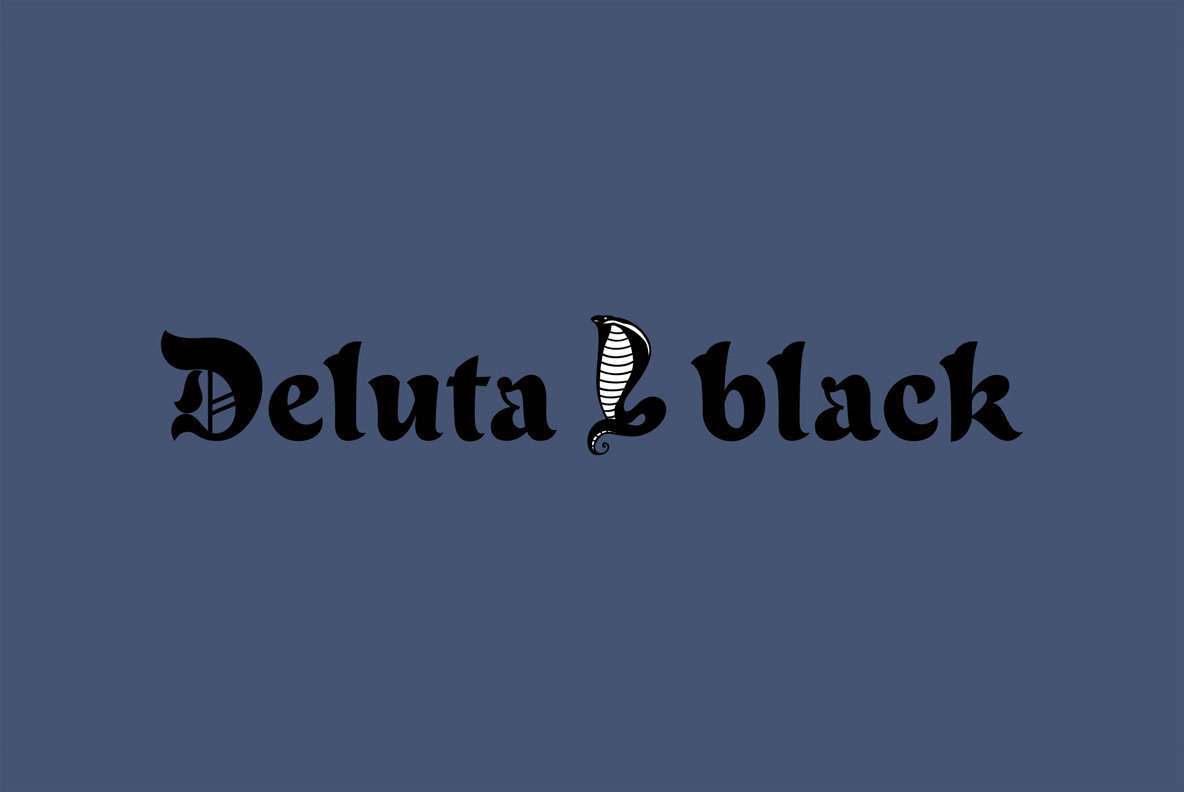
Deluta Black Font
Deluta Black Font is perfect for bold industrial branding, dramatic poster design, commanding corporate identities, high-impact advertising campaigns, powerful editorial headlines, striking logo applications, authoritative signage systems, and dominant visual communications. This formidable typeface works exceptionally well in both digital applications and print media where maximum visual weight and uncompromising presence are fundamental design requirements.
What makes Deluta Black Font so exciting is its unrelenting interpretation of typographic power through ultra-bold letterforms that command absolute attention with the same overwhelming force and undeniable presence of industrial machinery and architectural monuments. The font features massive characters with commanding proportions, dominant stroke weights, and authoritative details that create immediate visual hierarchy and establish unquestionable authority. Its powerful personality and industrial heritage make it ideal for brands seeking to dominate competitive markets while communicating strength, reliability, and the unstoppable force of confident leadership to audiences who respect bold decisiveness.
The Deluta Black Font family includes ultra-heavy weight variations with different impact intensities, along with condensed styles and commanding alternates. Each style maintains the typeface's dominant character while offering comprehensive character sets including powerful numerals, authority-focused punctuation marks, and special symbols designed to enhance commanding communications and dominant branding efforts across various high-impact contexts.
This extraordinary typeface represents the perfect fusion of typographic weight and contemporary design power for industries requiring maximum visual impact. Whether you're developing construction company identities, creating bold advertising materials, or designing commanding corporate communications, Deluta Black Font Free Download delivers the visual dominance and versatility needed to establish immediate authority. The font's industrial strength makes it particularly effective for heavy industry, construction companies, bold advertising agencies, and businesses requiring maximum visual impact and uncompromising brand presence.
The precisely engineered ultra-bold construction and optimized commanding performance in Deluta Black Font ensure maximum visual weight while maintaining clear communication across all high-impact applications. Its dominant presence makes it ideal for authoritative branding, commanding marketing campaigns, and powerful communications where its full black-weight character can create unforgettable impressions and establish immediate association with strength, authority, and uncompromising visual dominance.